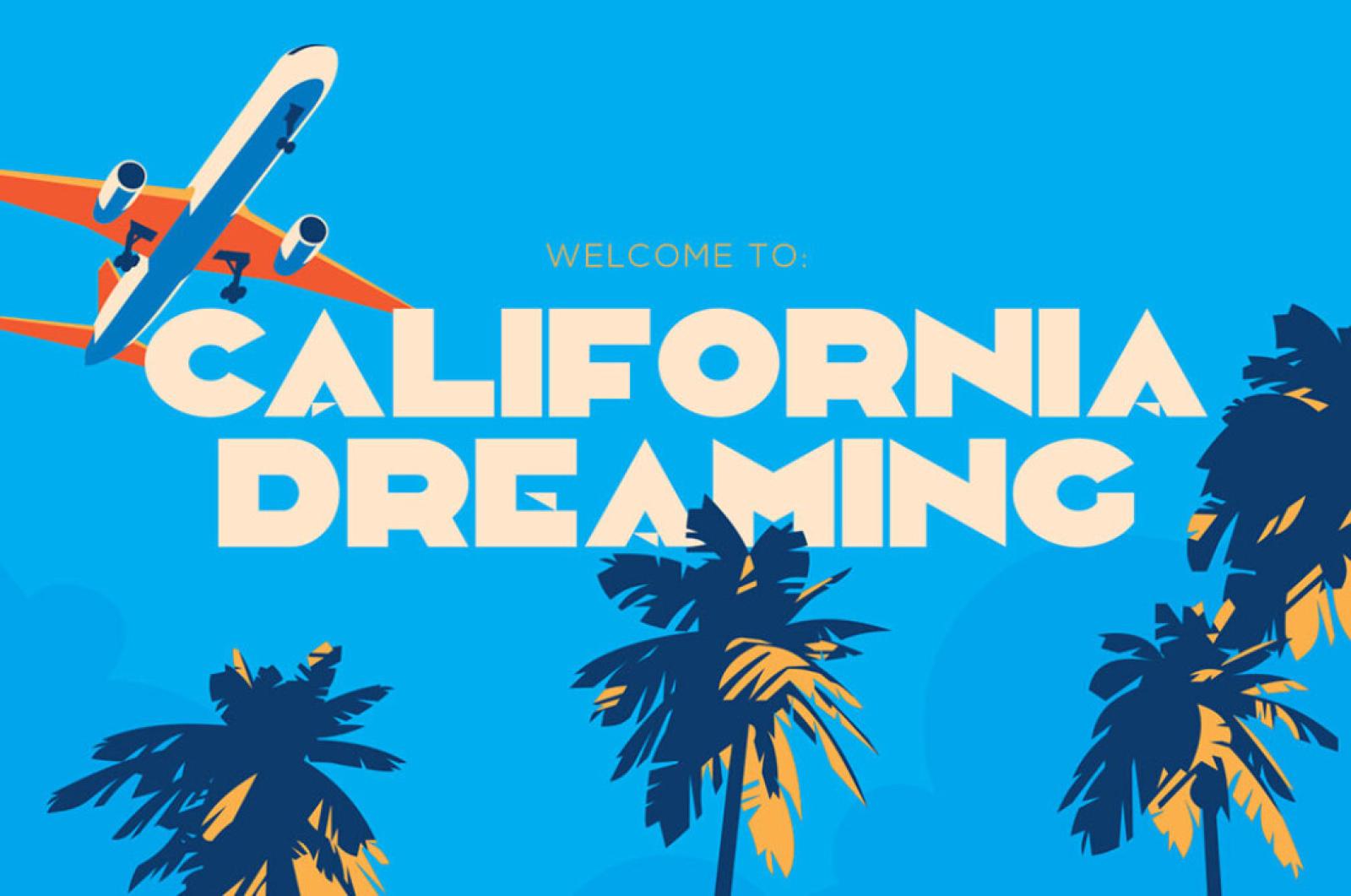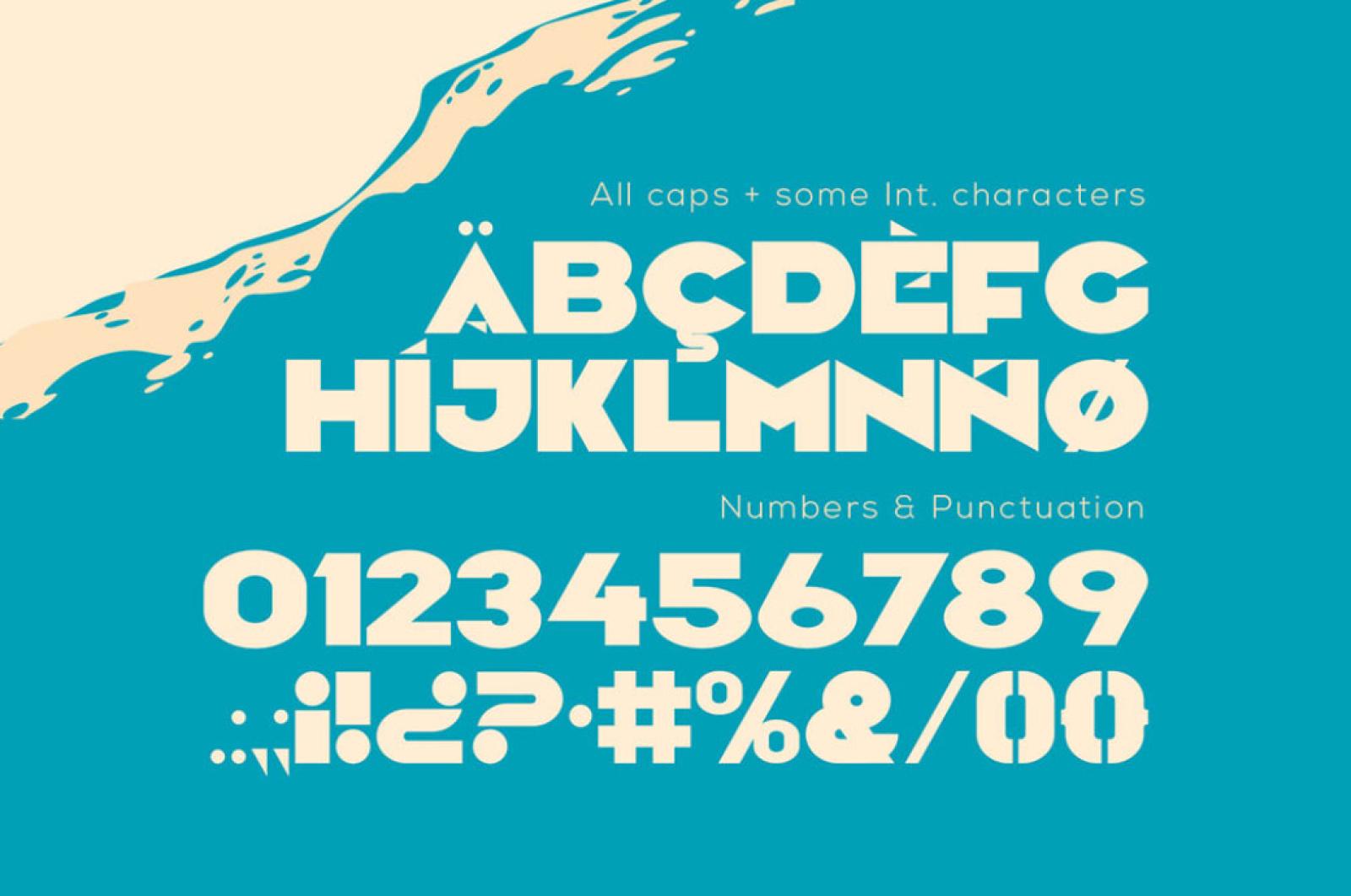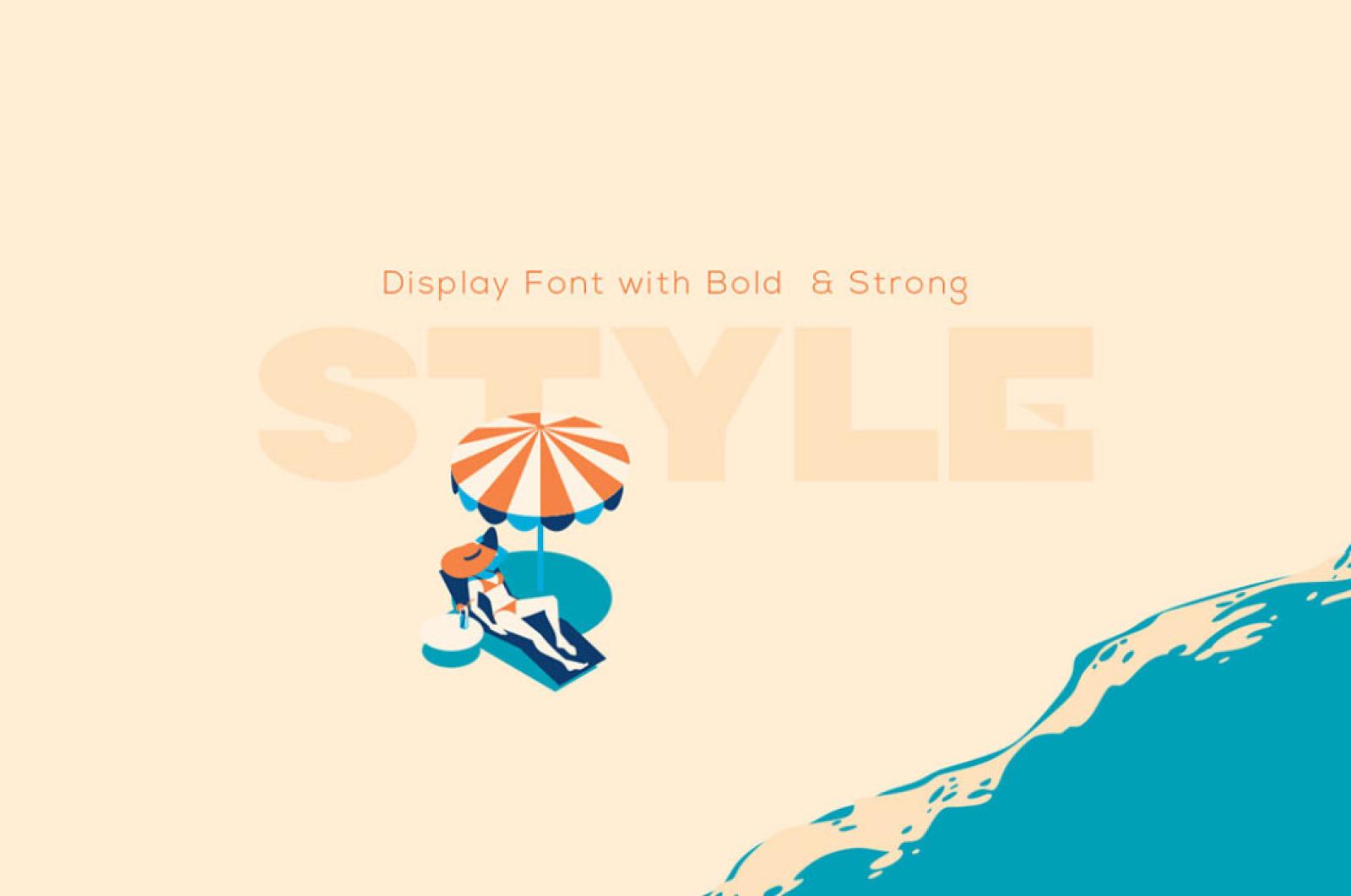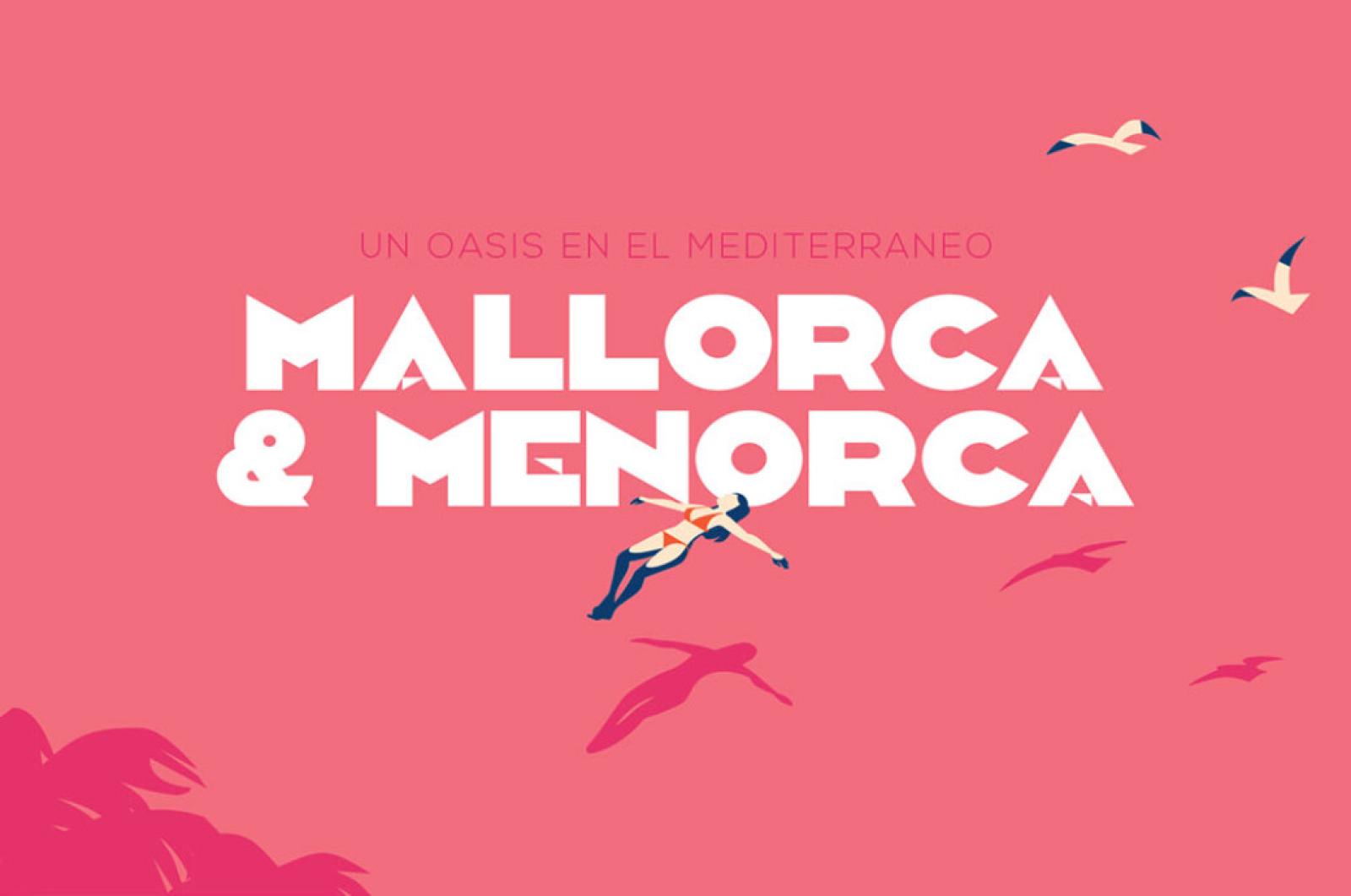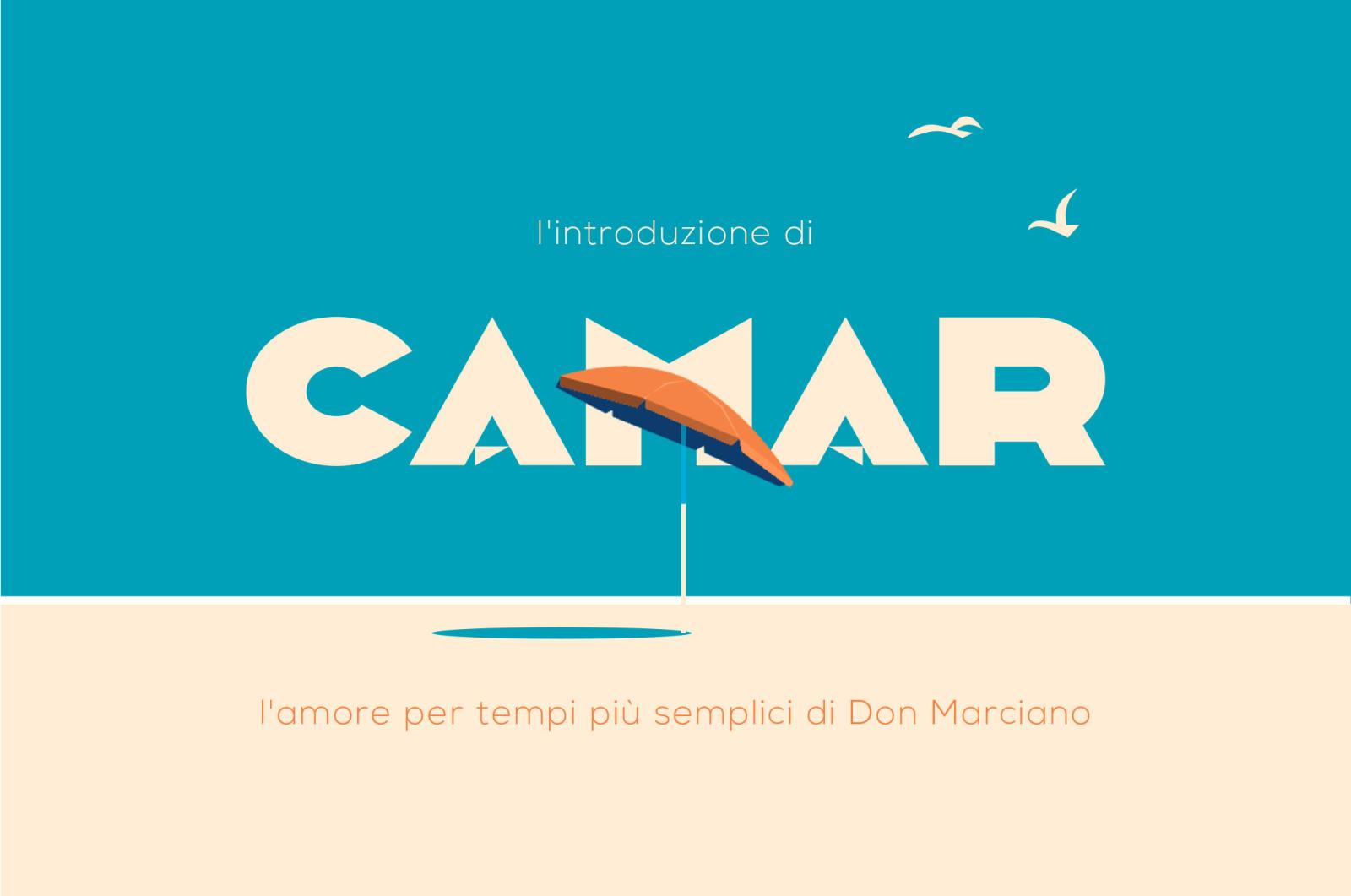
Camar Vintage Font
This art deco-inspired vintage font was created initially for a set of postcards that needed a more modern feel and consistency. Now the font creates a calm rhythm beat for reading.
From the era of modernization and expansion were anything seems to be possible, when simple meant elegant, when form and poise were the norms, we bring to you a unique Camar font! The featured OTF files include a total count of 187 glyphs for sending messages in commercials, banners, headers, logos, and branding pieces.